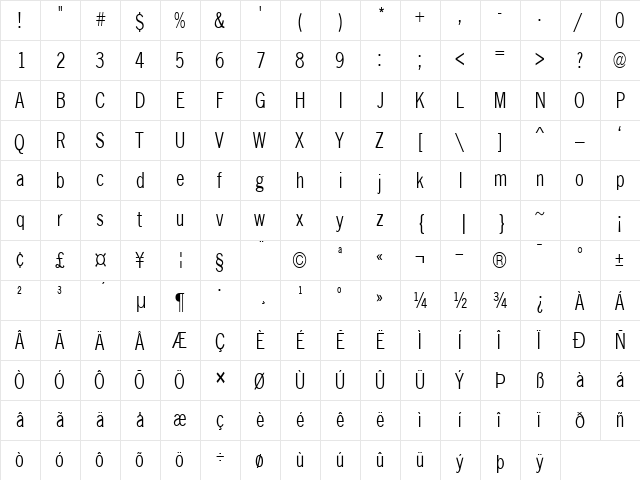
Matterhorn-Condensed Normal
Design Context for Matterhorn-Condensed Typeface
Matterhorn-Condensed offers clean, dependable letterforms without strong stylistic allegiance, making it a practical choice for designers who need flexibility. Its narrow stance lets it pack a punch even in space-constrained designs.